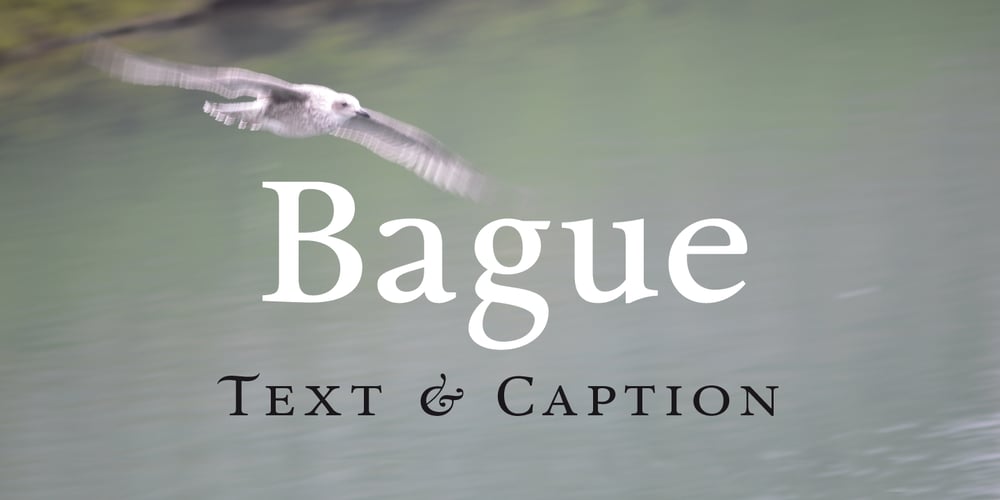
Bague Font Family was designed by Olcar Alcaide and published by Eurotypo. Bague contains 12 styles and family package options. Bague is a classical roman typeface, which was inspired in Old Dutch style, especially in the work of Jan Van Krimpen. Bague family comes with two different lengths of stem (ascenders-descenders), with three weights in each style: Text and Caption OpenType features: Discretional and standard ligatures; Swash, Contextual and stylistic alternates; Case sensitive forms, tabular figures, numerals, denominator, numerator, Small-Caps and Old Style figures.